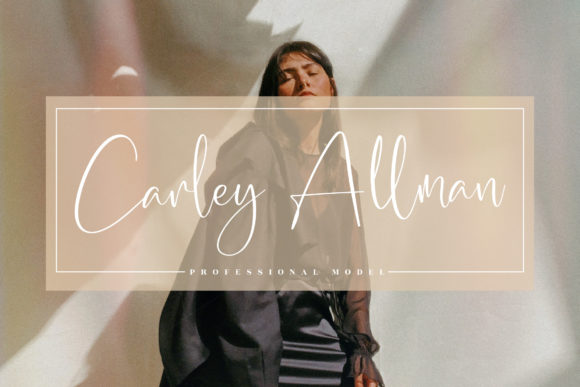
Georgia Western Font
db-ku.com - Script & Handwritten -- Georgia Western is a modern signature font, suitable for any projects such as logos, branding projects, homeware designs, product packaging, mugs, quotes, posters, shopping bags, t-shirts, book covers, and name cards. You can also use it to create invitation cards, greeting cards, labels, photography, watermark, special events, and all your other lovely projects that need a beautiful script taste.